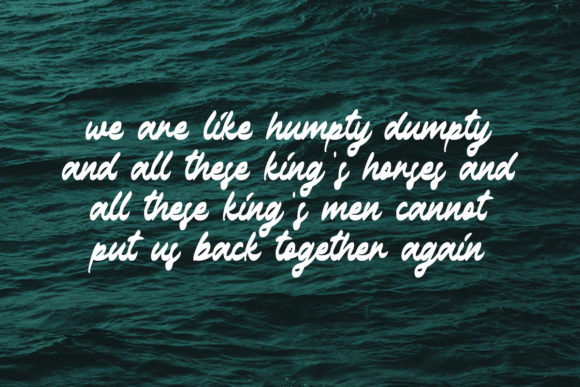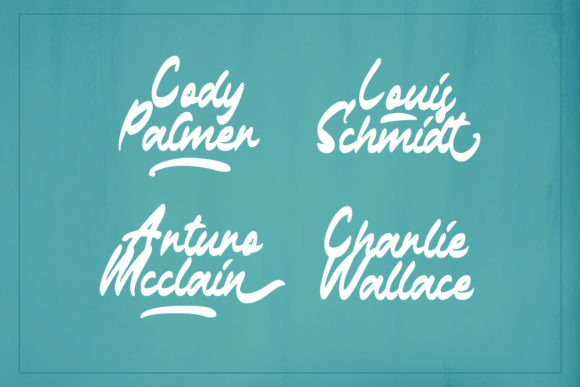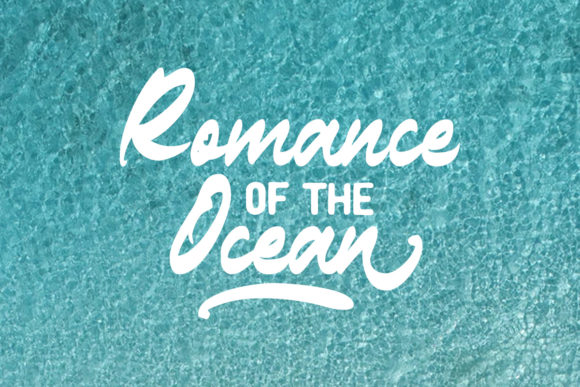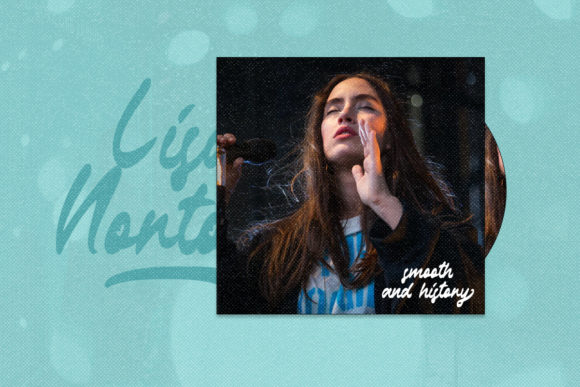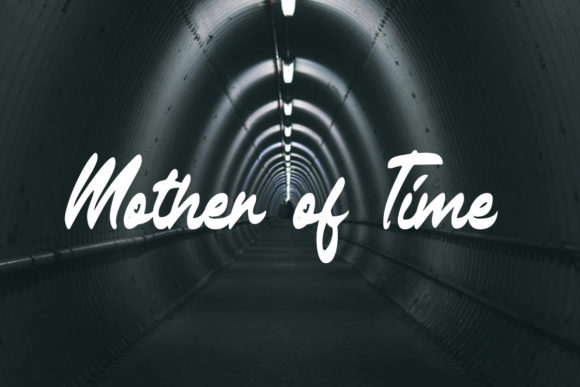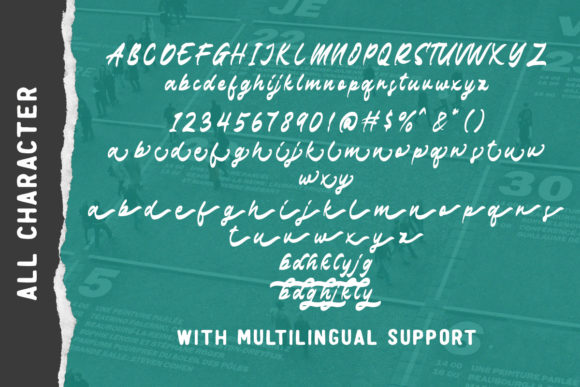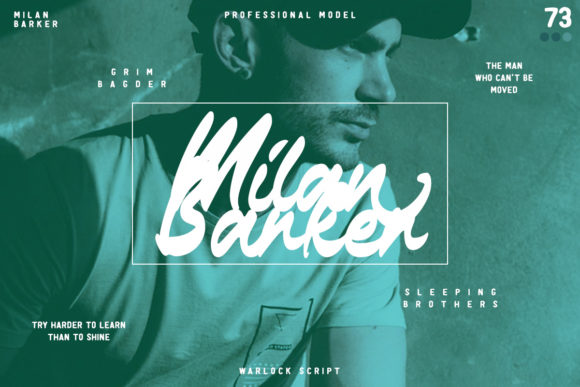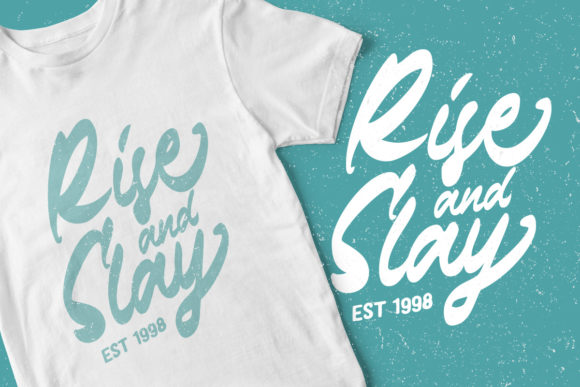
The Warlock Font
About The Warlock Font
The Warlock is a neat and flowing handwritten font, featuring a vintage touch. It is PUA encoded which means you can access all of the glyphs and swashes with ease! Fall in love with it and bring your projects to the highest levels!